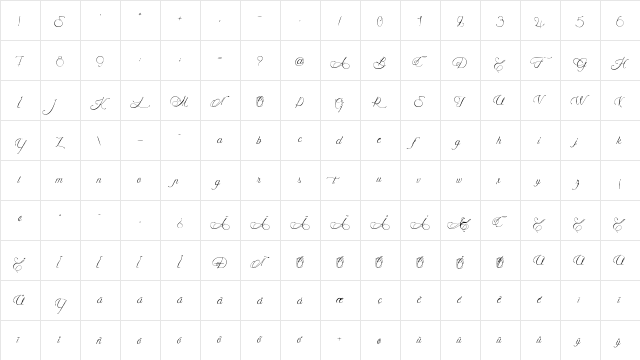
Mademoiselle Camille L Italic
Design Context for Mademoiselle Camille L Typeface
Mademoiselle Camille L is a composed and adaptable typeface that performs quietly and consistently across a wide range of design contexts. Its italic angle brings a sense of urgency and motion to the letterforms.
Pro Tip: Try Mademoiselle Camille L for annotation and caption copy alongside an upright companion — the contrast in angle creates a dynamic but ordered typographic system.